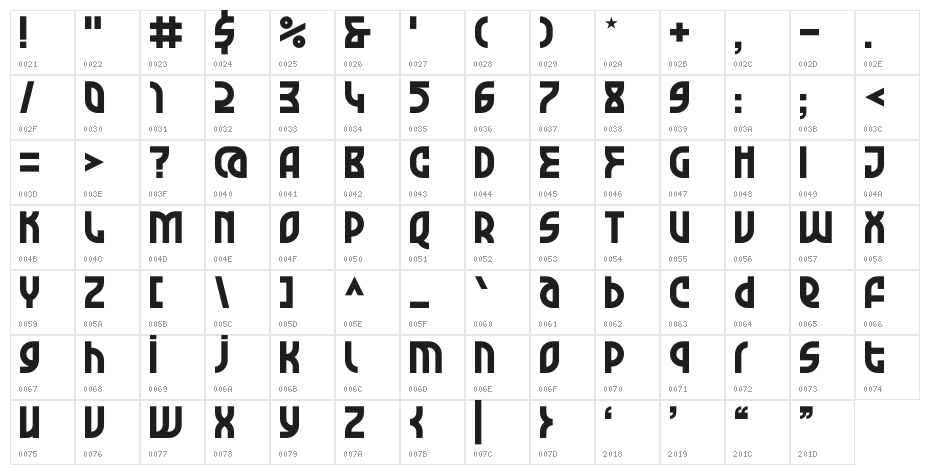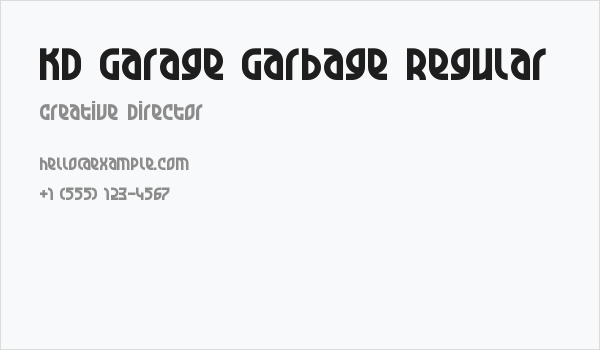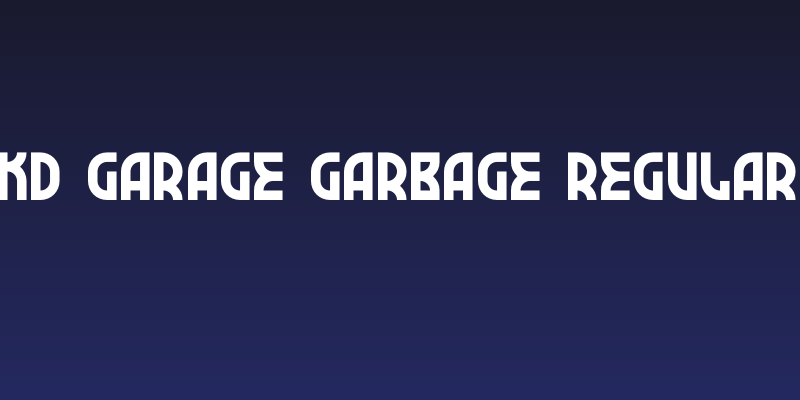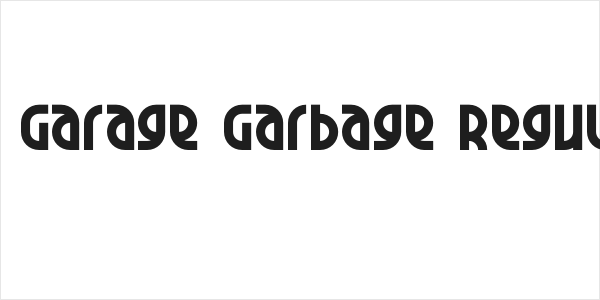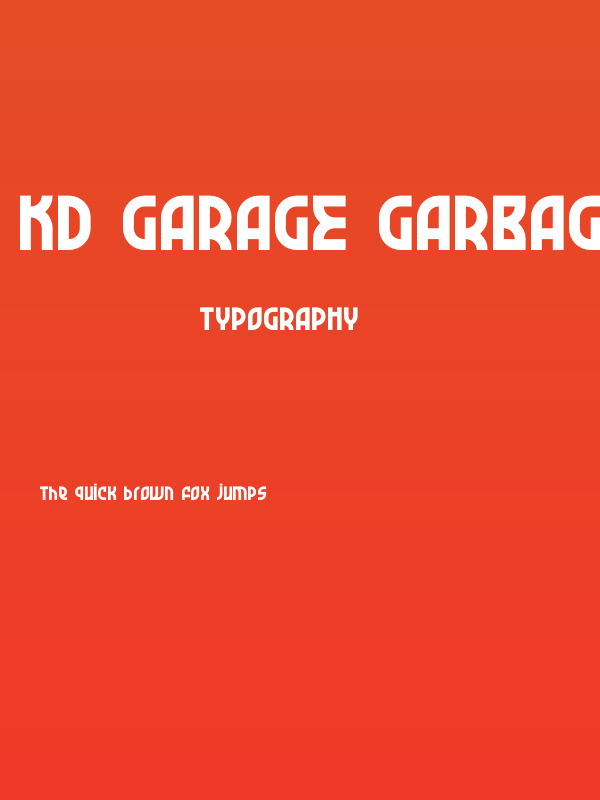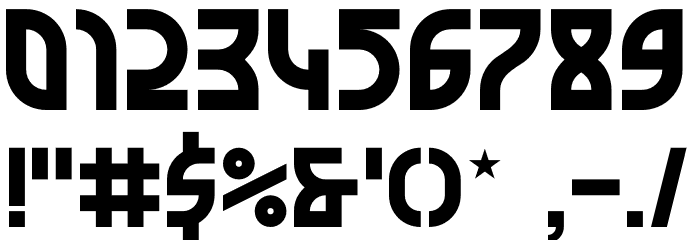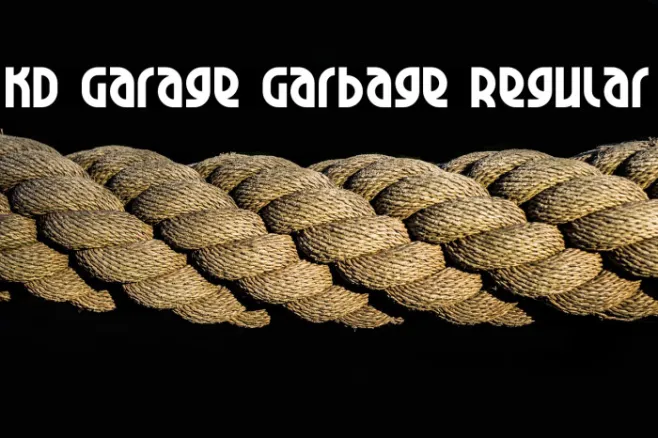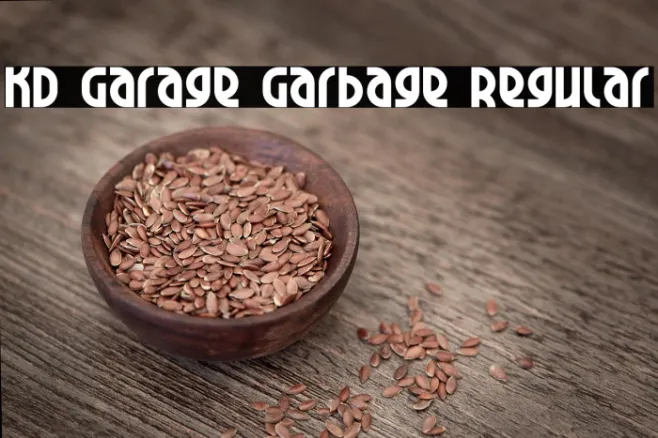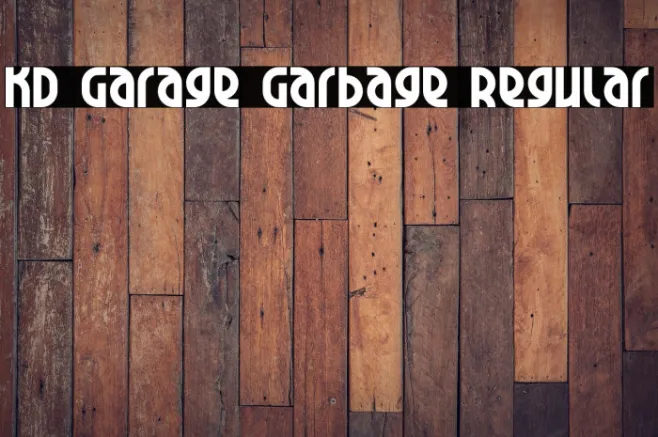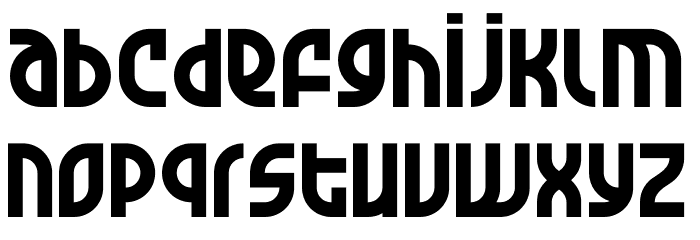
KD Garage Garbage Regular Font
KD Garage Garbage Regular Description
This font features a bold, geometric style with a modern and industrial feel. The characters are constructed with thick, uniform strokes and sharp angles, giving them a strong and assertive presence. The uppercase letters are particularly striking, with unique cutouts and curves that add a distinctive flair. The lowercase letters maintain the same boldness, ensuring consistency throughout the typeface. Numbers and special characters are designed to match the overall aesthetic, providing a cohesive look. This font is ideal for projects that require a bold statement and a contemporary edge.